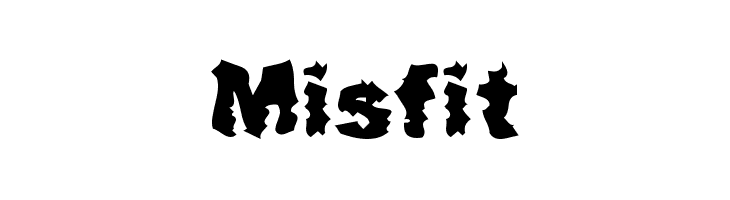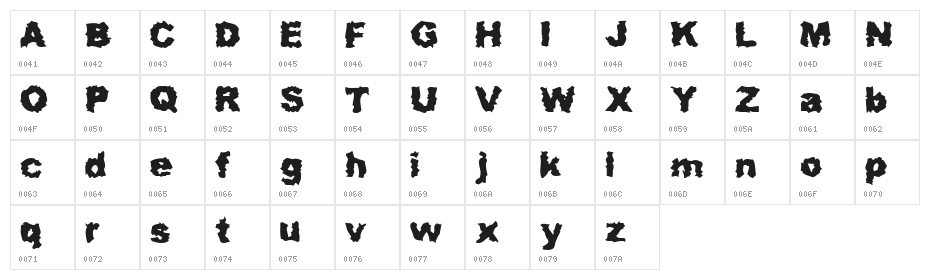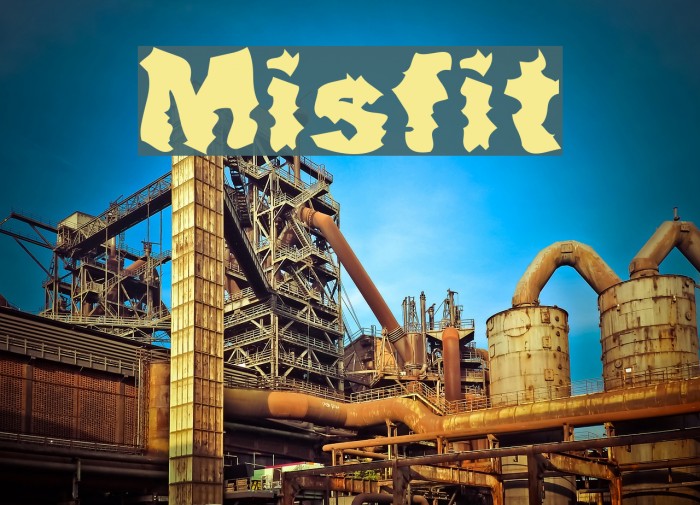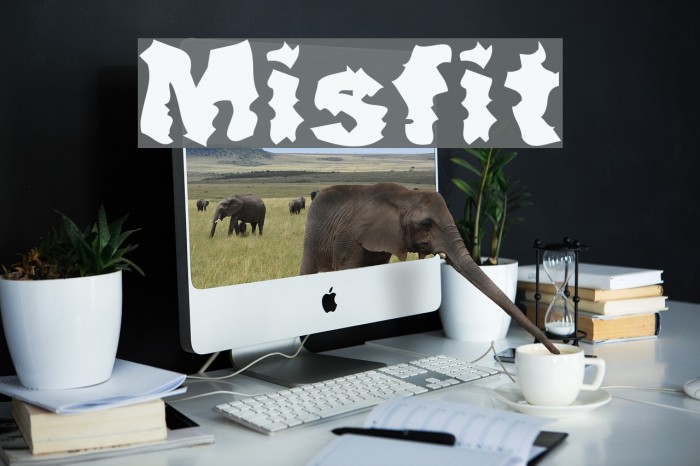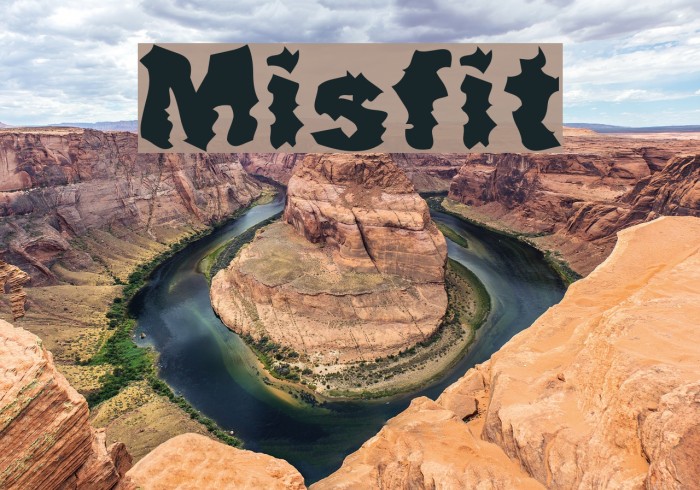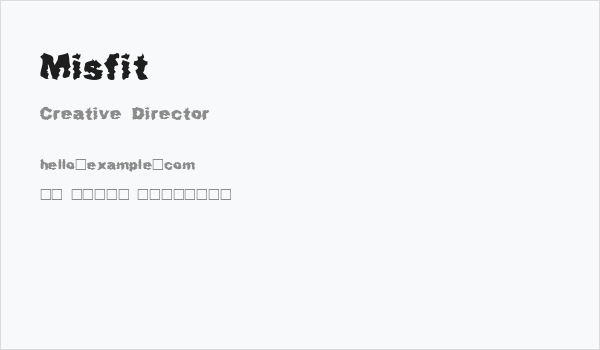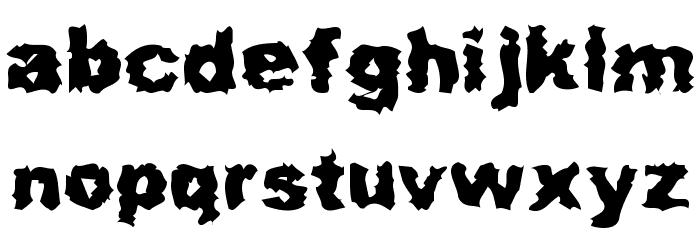
Misfit Font
Misfit Description
This font exhibits a bold and rugged style, characterized by its jagged and irregular edges, giving it a distressed and grunge appearance. The uppercase and lowercase letters maintain a consistent rough texture, which adds to its unique and rebellious aesthetic. The font lacks traditional smooth curves, opting instead for a more chaotic and edgy design. This makes it particularly eye-catching and suitable for projects that require a strong visual impact. The absence of special characters suggests a focus on basic alphanumeric use, enhancing its raw and unrefined charm.
| Proposed Projects | Ideal for music album covers, event posters, and edgy branding materials. |